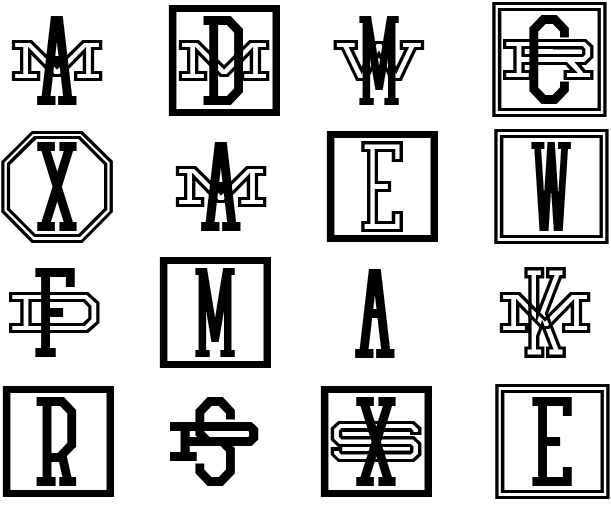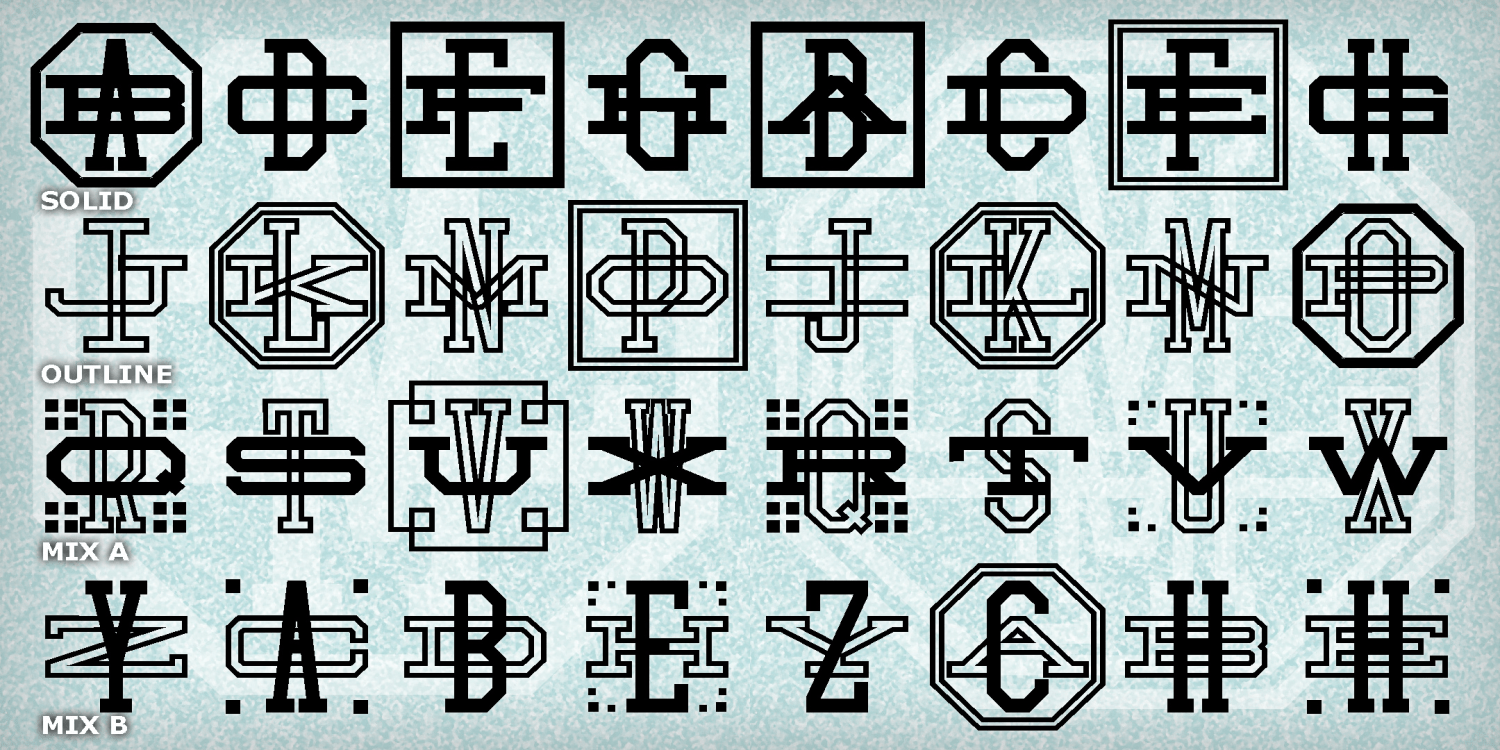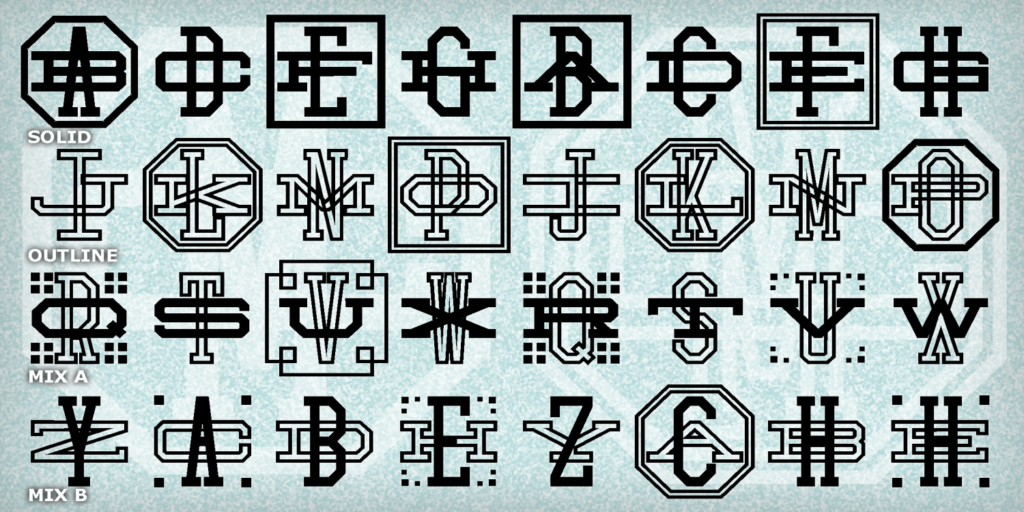
Collegiate Monograms Two
COLLEGIATE MONOGRAMS TWO lets you make 2-letter monograms in the angular, intersecting "college team" style. The set of four fonts includes Solid, Outlines, and 2 Mixes for your convenience. The are 8 different frames you can use to hold your…